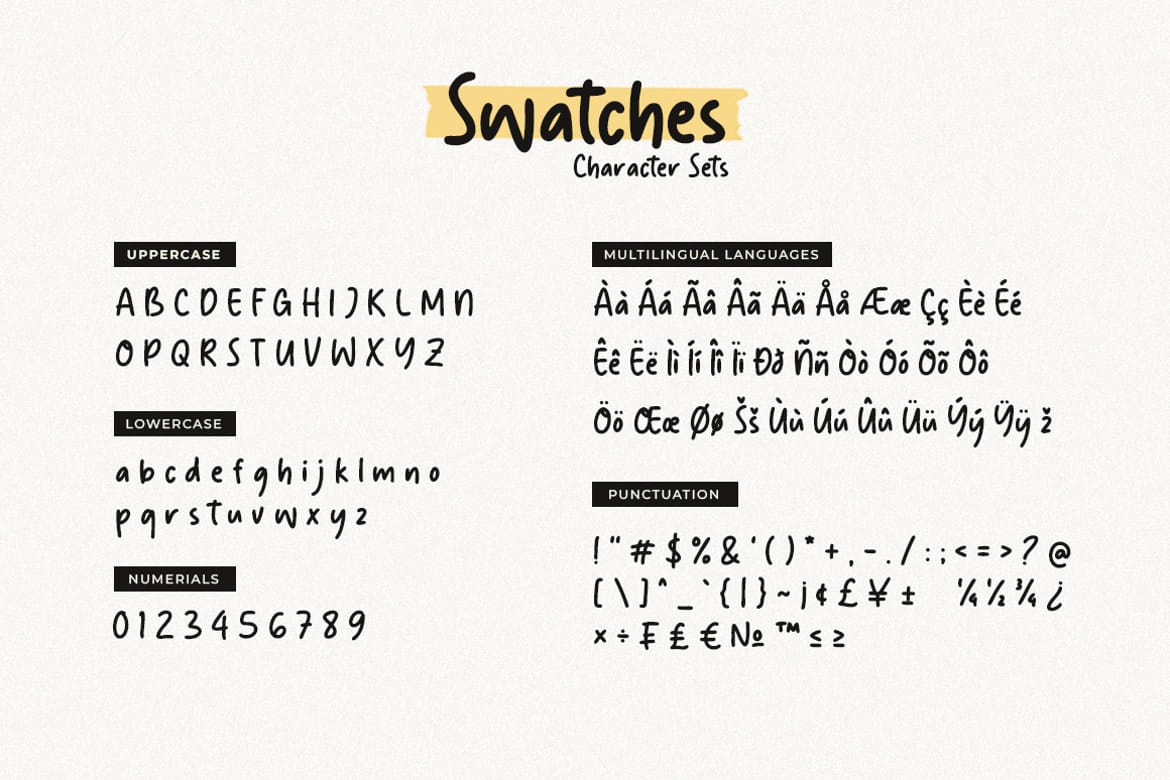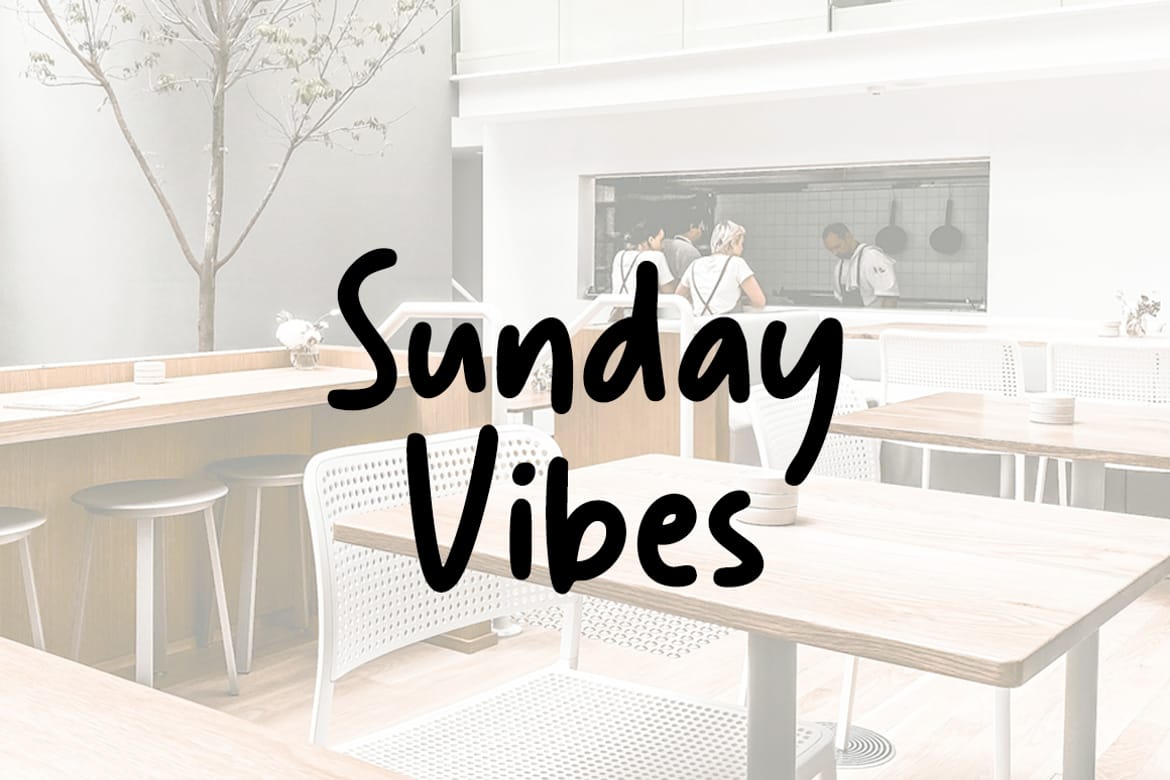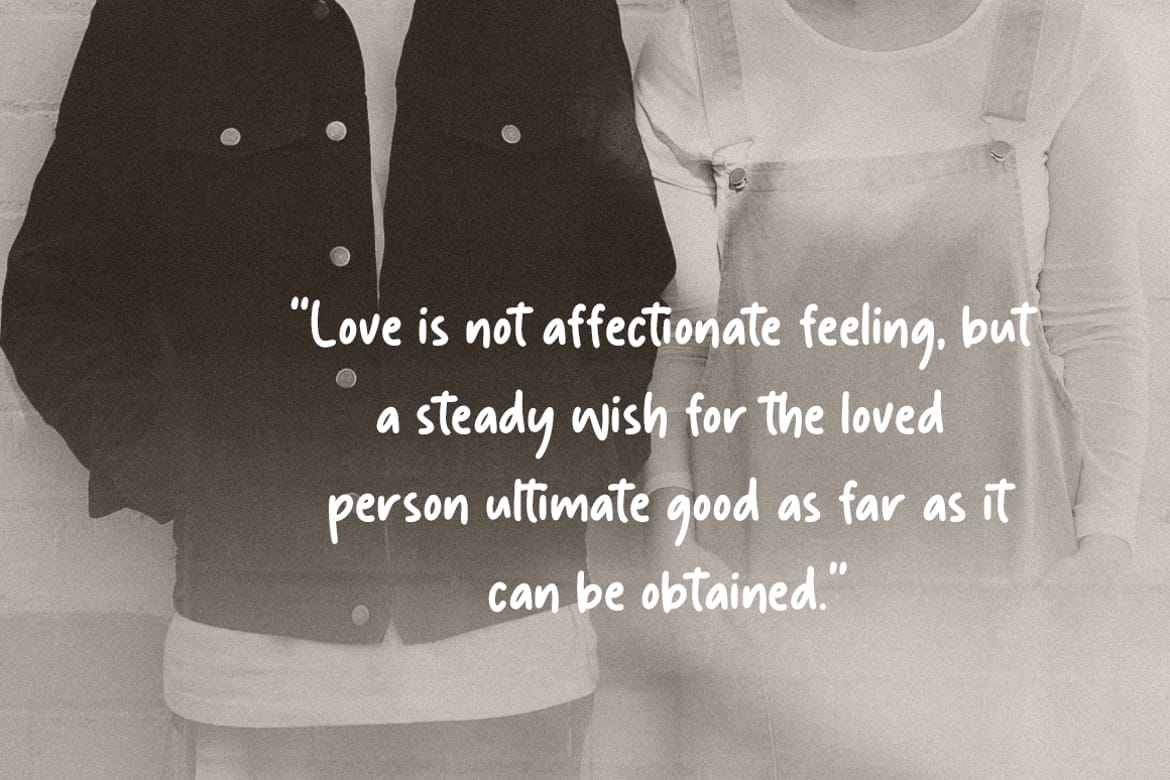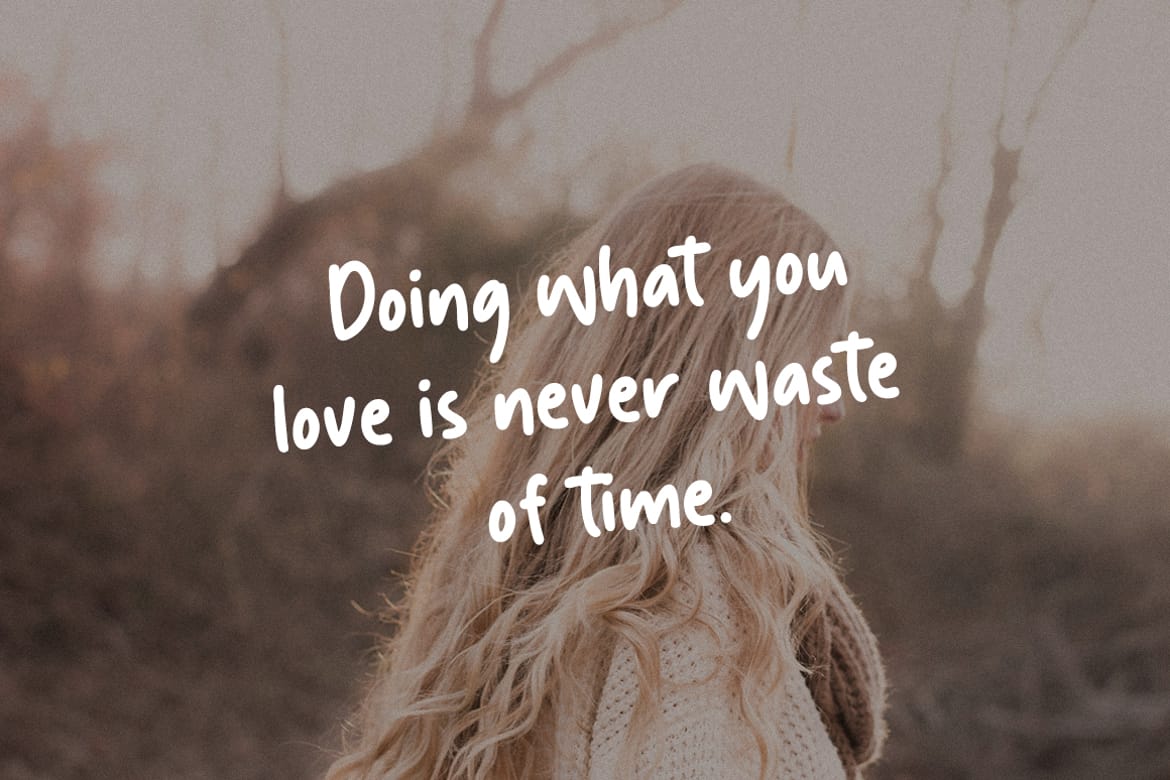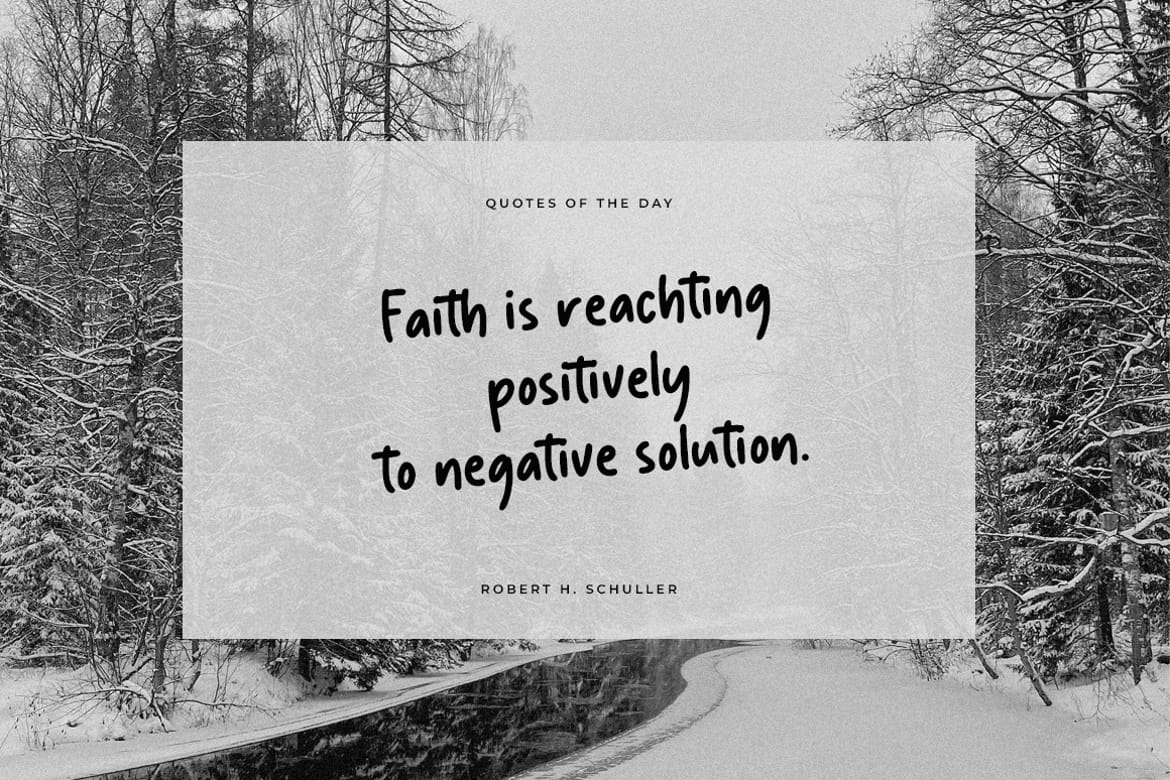
Swatches is a playful handwritten display font designed to bring warmth, creativity, and personality into every design project. With its smooth curves, bold strokes, and casual handwritten style, Swatches creates a friendly and modern look that feels both fun and authentic. Perfect for branding, social media graphics, packaging, posters, children’s products, quotes, invitations, and creative marketing materials, this font adds a natural handwritten touch that instantly stands out.